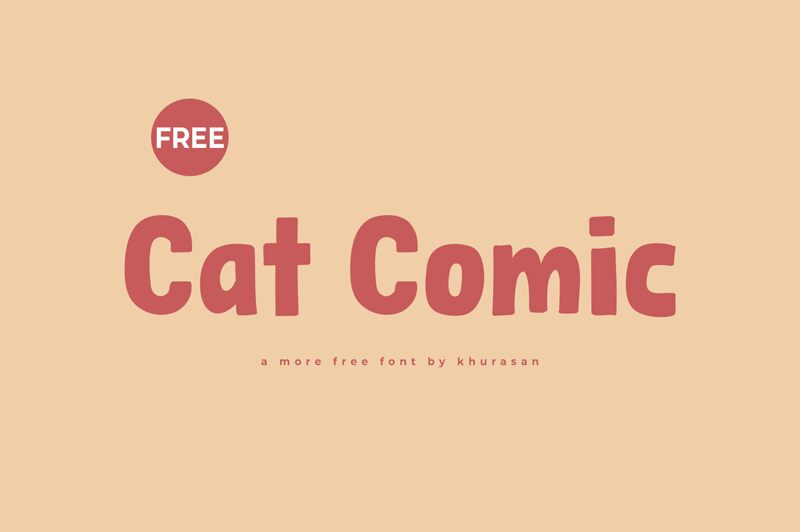
Cat Comic is a bold, cartoon-inspired font that exudes a playful and whimsical charm. Designed by Khurasan, this display typeface boasts distinctive letterforms with rounded edges, bold strokes, and an overall carefree aesthetic.
The font's strong character and lively personality make it an excellent choice for a variety of design applications, from children's books and advertisements to packaging and branding.
Its versatility allows it to seamlessly integrate into playful, lighthearted projects, adding a touch of fun and personality to the overall visual experience.